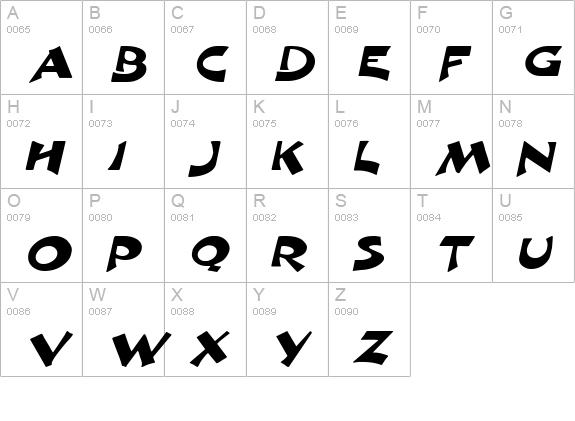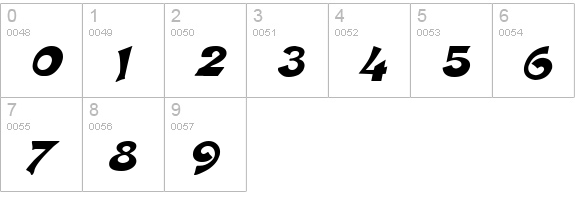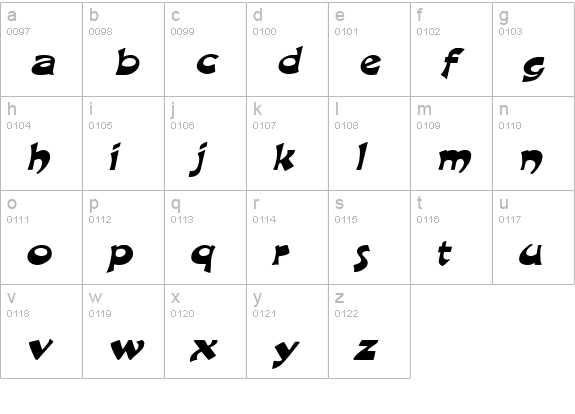
CraneExtended Italic is a distinctive, italic variant in the CraneExtended typeface family \xE2\x80\x94 well suited to design and typography projects.
CraneExtended Italic font is a sleek and sophisticated typeface designed to make your projects stand out. Its elegant and modern appearance will add a touch of style to any design, whether it be for branding, advertising, or other creative endeavors. The italic style of CraneExtended gives it a dynamic and flowing look, making it perfect for conveying a sense of movement and energy. And the best part? CraneExtended Italic font is available for free! You can download it easily at FontsMarket.com and start using it in your projects right away. Don't miss out on this fantastic opportunity to enhance your designs with this beautiful and versatile typeface.